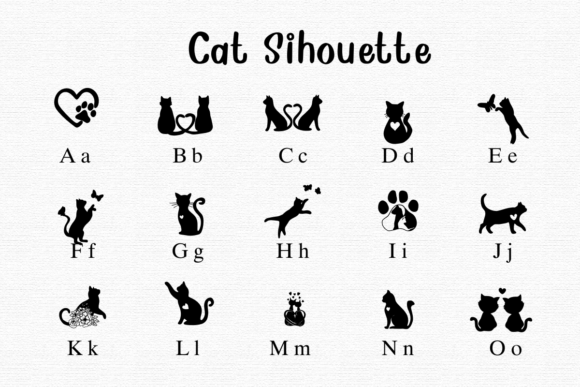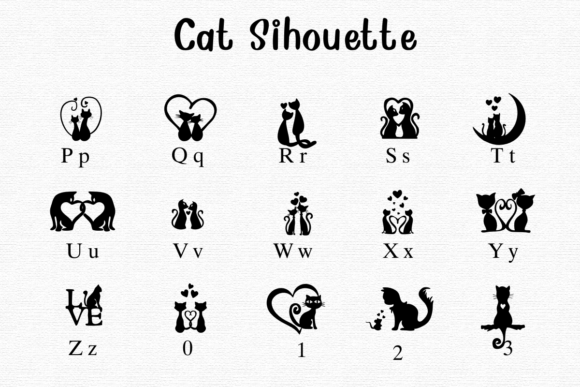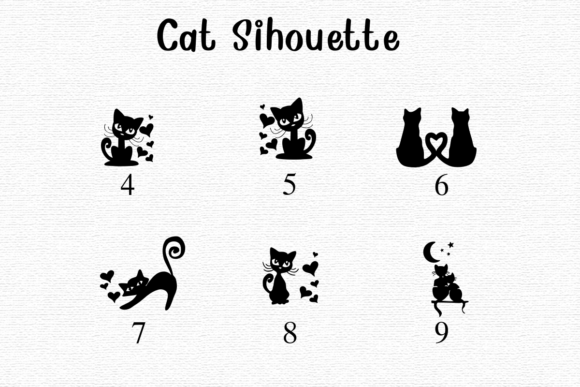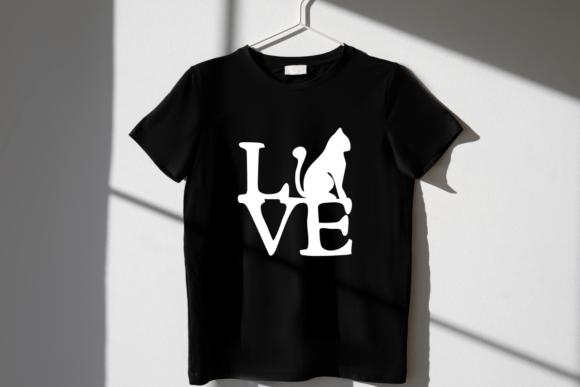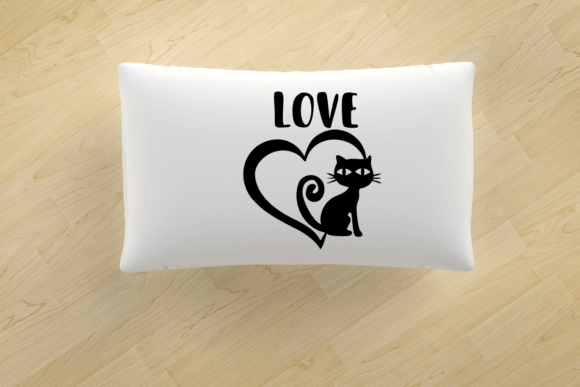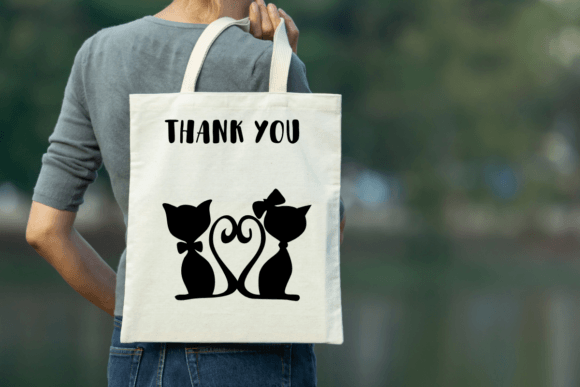
Meet Your New Feline Friend in Font Form
Have you ever found yourself doodling cats in the margins of a notebook, or sketching out adorable feline silhouettes on a lazy Sunday afternoon? You’re not alone! Many designers and creatives have a soft spot for cats, and it’s no surprise why – their playful, curious nature is infectious. For those who can’t get enough of our feline friends, the Cat Silhouette Font is a dream come true.
This charming dingbat font features adorable pairs of cats in love, shown in simple, black silhouettes. Perfect for adding a sweet, cat-themed touch to your designs, the Cat Silhouette Font is a valuable asset for any designer looking to add some whimsy and personality to their work.
Cat Silhouette Font Key Features
- Font Style: A unique, hand-drawn design featuring silhouettes of cats in various poses and expressions.
- Unique Characteristics: Each font character is carefully crafted to capture the playful and whimsical nature of cats, making it perfect for designers seeking a distinctive and eye-catching font.
Designer Review: Cat Silhouette Font
Overall, I’m underwhelmed by the Cat Silhouette Font. While it has some unique features, its limitations hold it back from being a truly effective font.
- Cat Silhouette Font is perfect for cat lovers and those looking for a whimsical touch in their designs.
- The font is easy to read, even at smaller font sizes.
- The silhouettes of the cats add a playful, modern feel to any text.
- The font lacks flexibility and can only be used for specific themes or designs.
- The silhouettes can become repetitive and overwhelming if used excessively.
- The font doesn’t support any special characters or accents, which can limit its use in certain contexts.
While Cat Silhouette Font has its charm, its limitations make it a niche font that may not be suitable for most designs. If you’re looking for a font that can add a touch of whimsy to your cat-themed designs, this might be a good choice. However, for more general use, you may want to consider other options.
The Cat Silhouette Font is ideal for:
1. Pet-related designs and graphics.
2. Whimsical and playful branding.
3. Custom invitations and party decorations.
4. Adding a touch of personality to social media posts and blogs.
3. Pair the font with bold and playful colors to add visual interest.